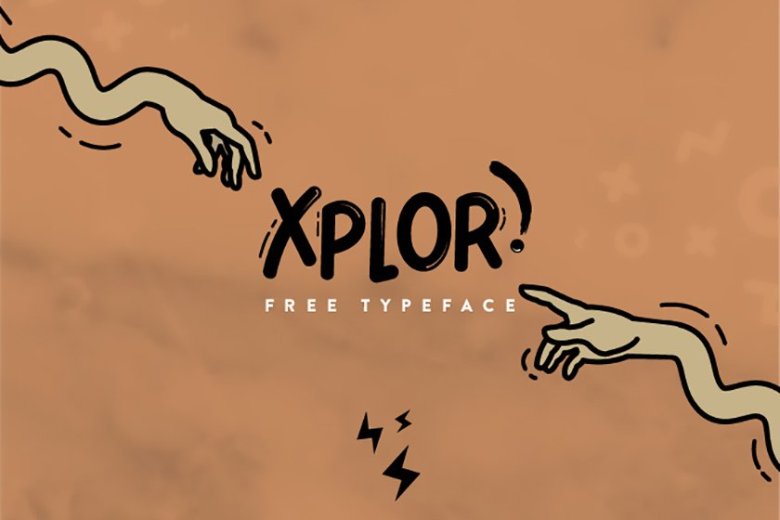
Xplore Typeface
Xplore is a Typeface font which peculiar but also comical at the same time. It is suitable for you who want to look different and give your design, quotes, poster or logo the center of attention. This font is available for commercial and personal use.